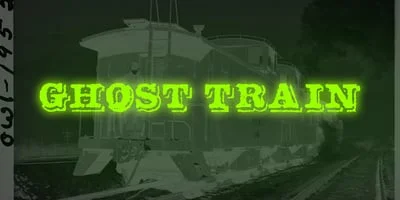
Ghost Train Font
Ghost Train Font is ideal for horror movie posters, Halloween party invitations, gothic book covers, spooky game titles, mysterious brand logos, haunted attraction signage, dark fantasy artwork, and atmospheric album covers.
This font is exciting because it captures the essence of supernatural mystery with its haunting letterforms that evoke feelings of suspense and intrigue. The Ghost Train Font creates an instant atmospheric effect, transforming ordinary text into spine-chilling visual experiences that captivate audiences and leave lasting impressions.
The Ghost Train Font family includes various atmospheric styles such as Regular, Bold, Distressed, Shadow, Outline, Grunge, Condensed, and Extended versions, offering designers multiple options to create the perfect eerie aesthetic for their projects.
Unleash supernatural creativity with Ghost Train Font that brings mysterious charm to any design project. This distinctive typeface excels in creating dramatic visual impact while maintaining excellent readability even in its most stylized forms. The font's unique character design makes it perfect for entertainment industry projects, themed events, and creative campaigns that need to establish a dark, mysterious atmosphere. Whether you're designing for horror genres, Halloween celebrations, or alternative brands, Ghost Train Font delivers the spine-tingling typography that sets the perfect mood. Its versatile nature allows for both subtle spookiness and bold dramatic statements across various media applications.